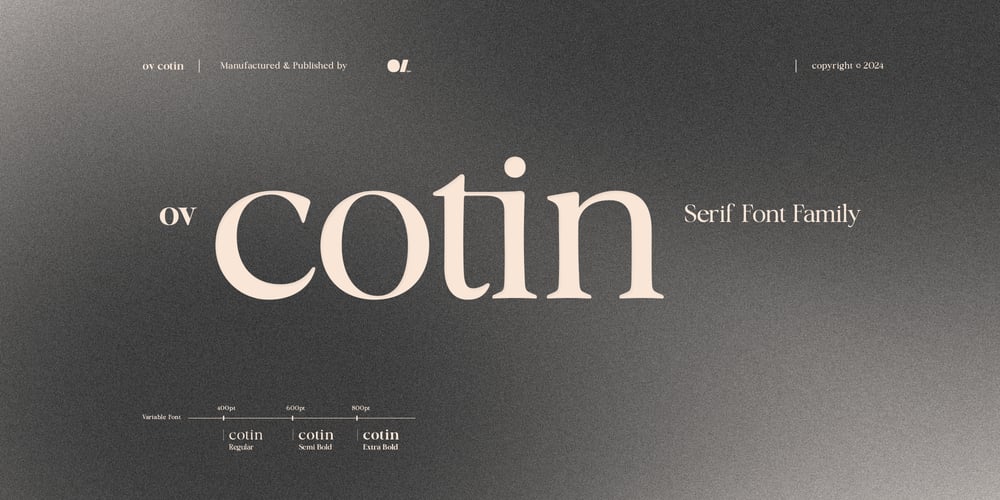
OV Cotin Serif Font Family was designed by Arif Rijal and published by OV Type. OV Cotin Serif contains 3 styles and family package options. OV Cotin, a timeless serif font with a classic foundation and a touch of modernity, has been updated to version 2.000!Font Features: Font Family: Regular, Semi Bold, and Extra Bold Design: Harmonious balance between nostalgia and renewal Craftsmanship: Meticulously designed to evoke familiarity while embracing contemporary trends Versatility: Perfect blend of tradition and innovation, ideal for sophisticated projects What’s New in Version 2.000: Kerning: Improved kerning for better readability and visual appeal Alternates & Ligatures: Added more alternates and ligatures for creative flexibility Elevate your designs with OV Cotin and let its versatile charm shine in every variable weight. Embrace the blend of tradition and innovation with this updated version!